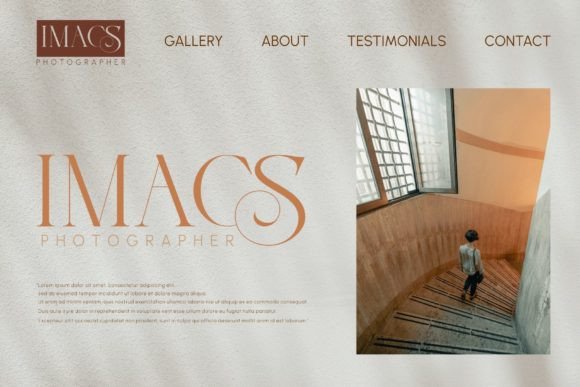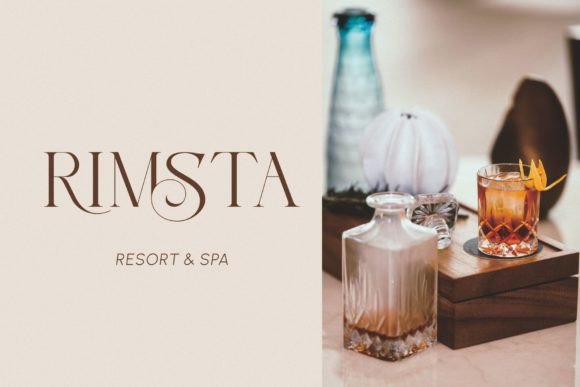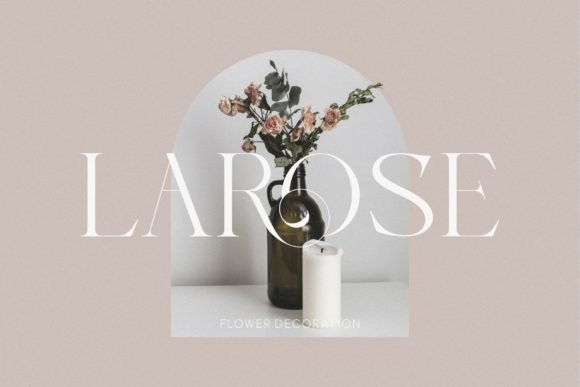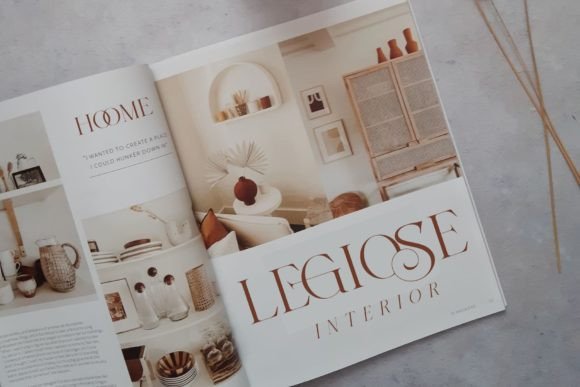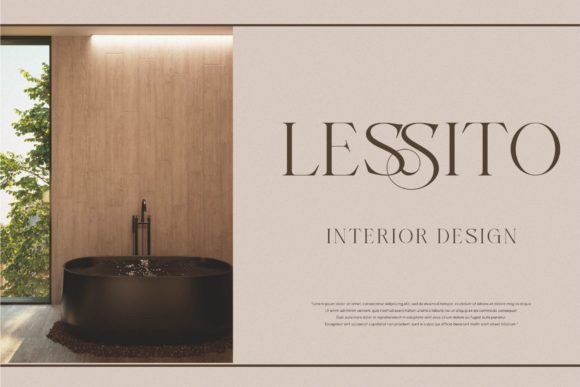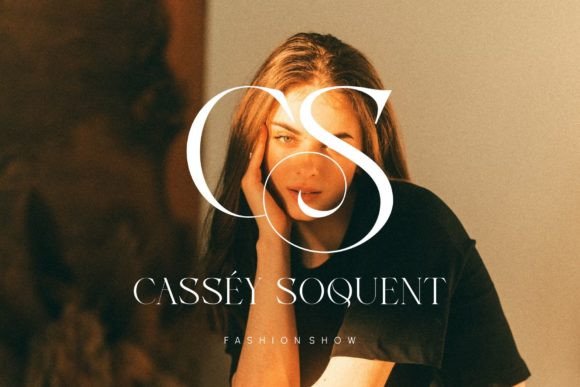
Introducing Ghisel Font: Elevate Your Designs with Elegance and Sophistication
In the world of typography, a good font can make all the difference in transforming a design from ordinary to extraordinary. For designers and crafters looking to add a touch of elegance and sophistication to their projects, the Ghisel Font is an excellent choice. This modern serif font, designed with subtle curves, is packed with features that will take your designs to the next level.
What is Ghisel Font?
GHISEL Modern Serif Font is a thoughtfully crafted typeface that combines the classic appeal of serif fonts with modern sensibilities. Its subtle curves add a touch of softness, making it perfect for designs that require a bit of sophistication and refinement. Whether you’re working on branding projects, logos, wedding designs, social media posts, advertising, product packaging, product designs, labels, photography, watermarks, invitations, stationery, or more, Ghisel Font is an excellent choice.
Key Features of Ghisel Font
So, what sets Ghisel Font apart from other fonts? Here are some of its key features:
• Subtle Curves: The font’s subtle curves give it a soft, yet sophisticated look that’s perfect for designs that require a touch of elegance.
• Many Ligatures: Ghisel Font comes with a range of ligatures that allow you to create unique and beautiful text. Ligatures are special characters that combine two or more letters into a single glyph, adding a touch of sophistication to your text.
• Alternative Letters: In addition to ligatures, Ghisel Font also offers alternative letters that give you even more flexibility and creative control over your text. With these alternatives, you can create unique and eye-catching text that’s sure to stand out.
Why Choose Ghisel Font?
With so many fonts available, why choose Ghisel Font? Here are just a few reasons why designers and crafters love this modern serif font:
• Elegance and Sophistication: Ghisel Font is designed to add a touch of elegance and sophistication to your designs. Its subtle curves and classic serif design make it perfect for projects that require a bit of refinement.
• Versatility: Whether you’re working on branding projects, logos, wedding designs, or social media posts, Ghisel Font is a versatile choice that can be used in a wide range of applications.
• Easy to Read: Despite its elegant design, Ghisel Font is easy to read, making it perfect for body text and other applications where readability is key.
In conclusion, Ghisel Font is an excellent choice for designers and crafters looking to add a touch of elegance and sophistication to their projects. With its subtle curves, many ligatures, and alternative letters, this modern serif font is perfect for a wide range of applications. Whether you’re working on branding projects, logos, wedding designs, social media posts, or product packaging, Ghisel Font is sure to elevate your designs and take them to the next level.